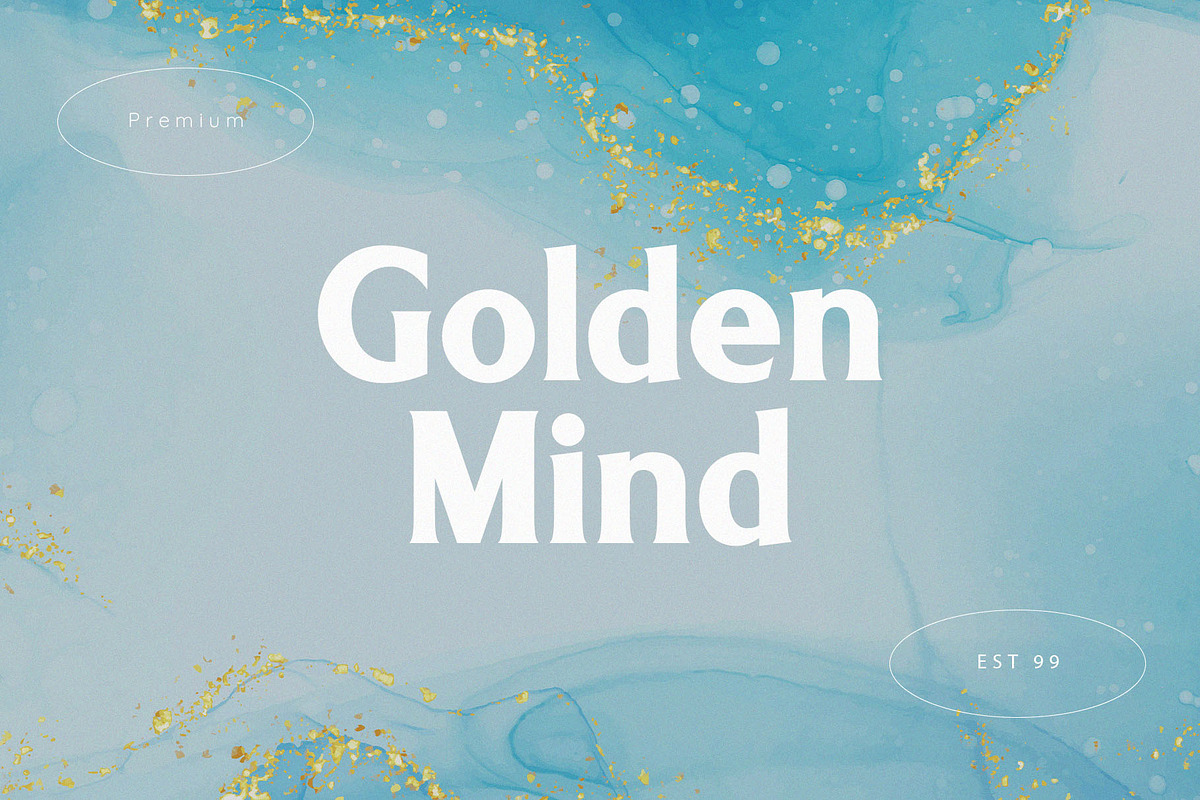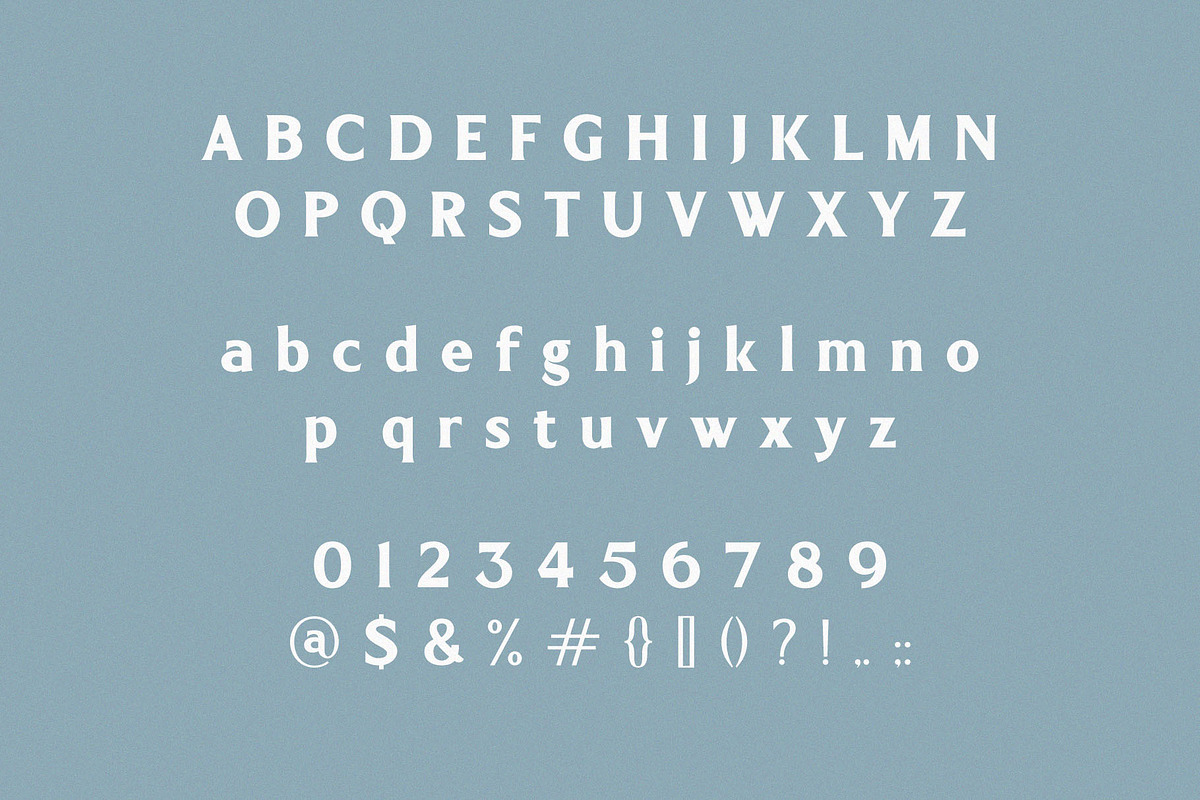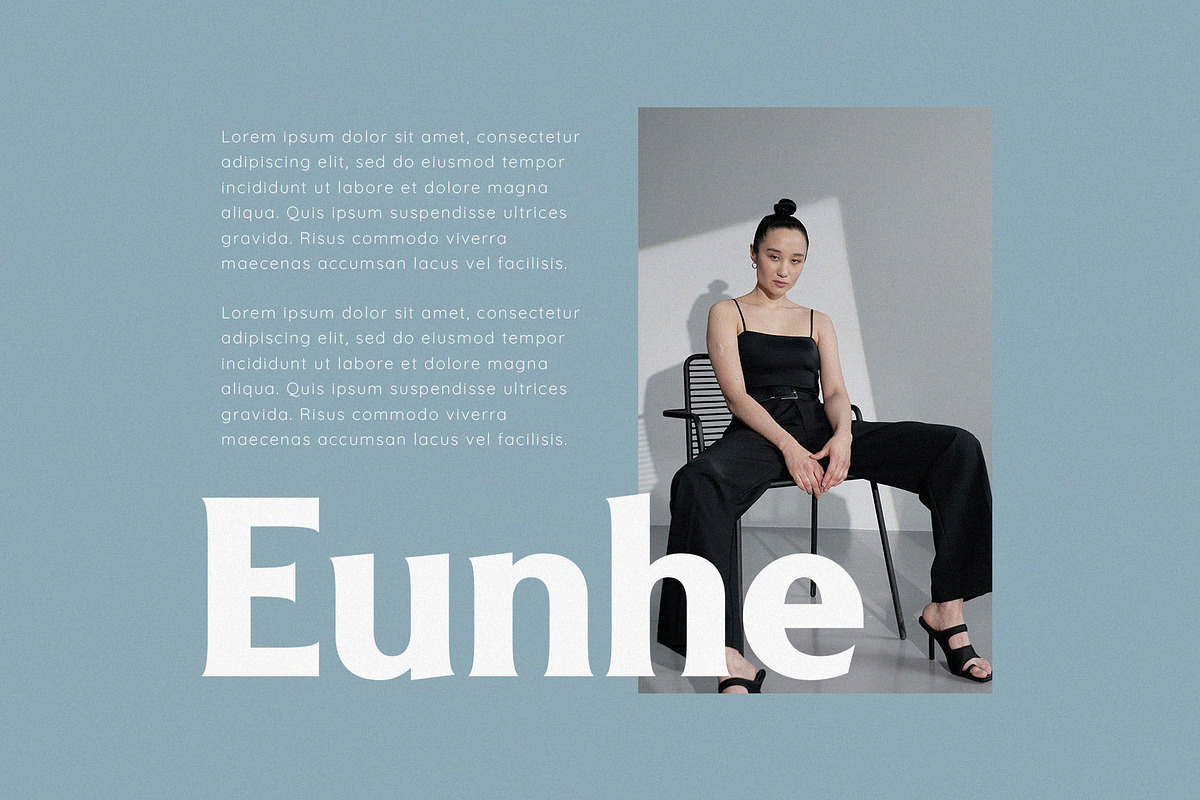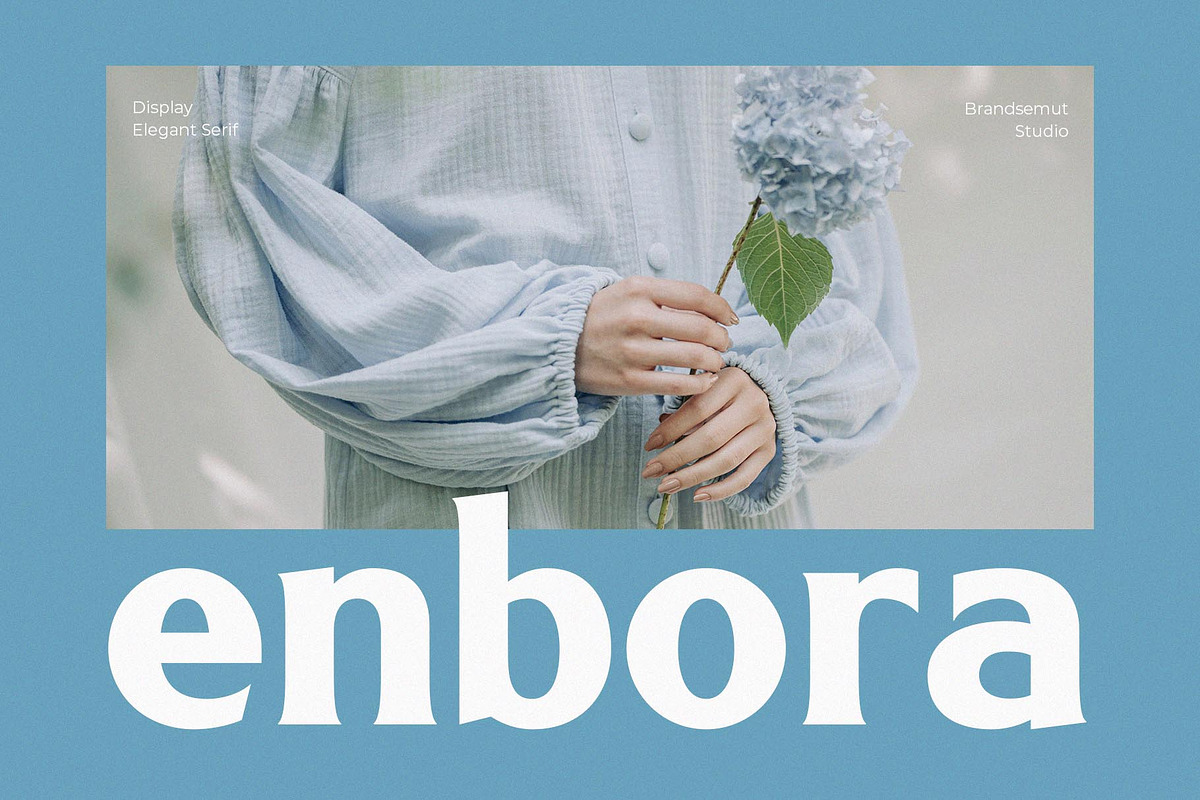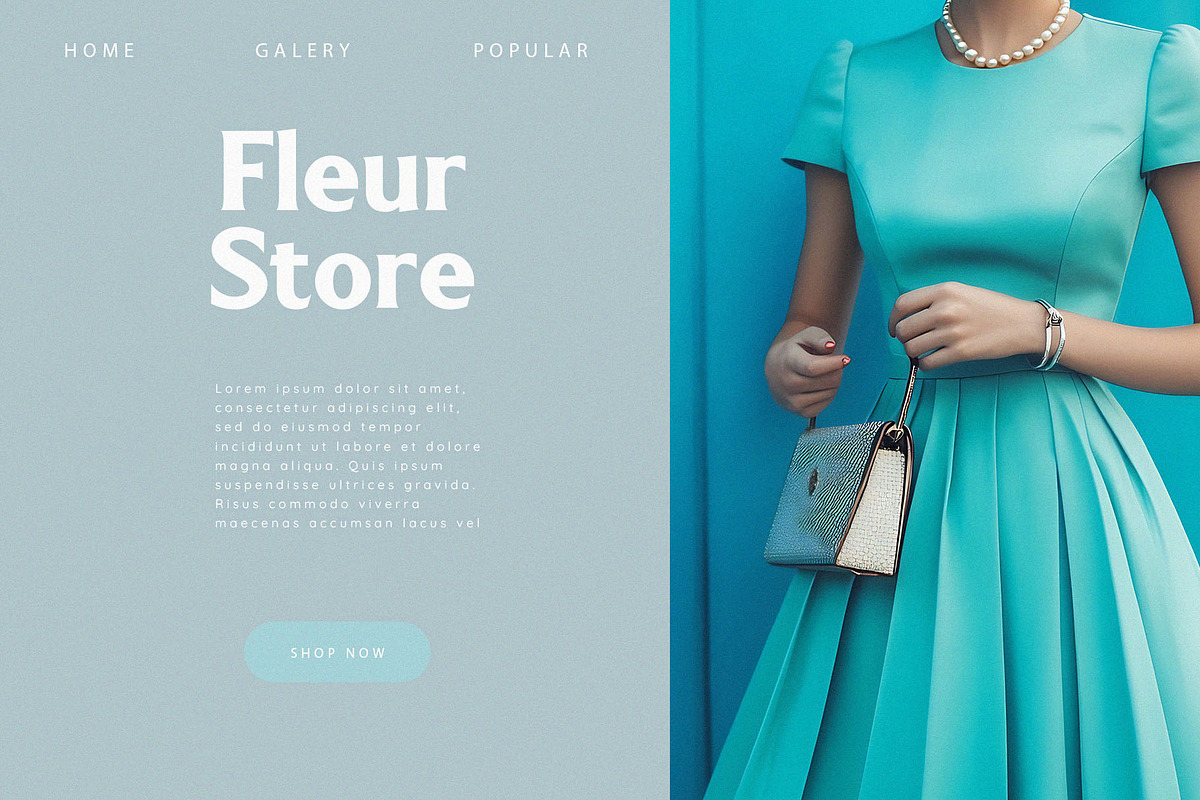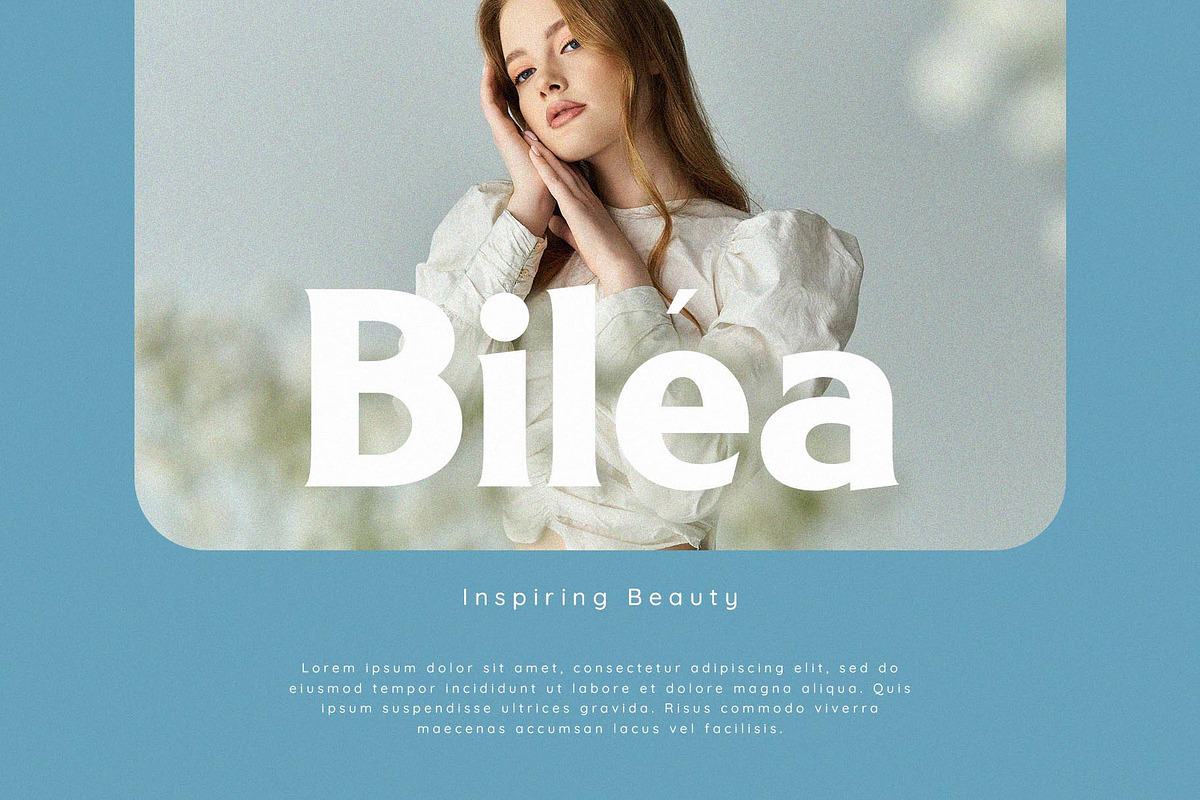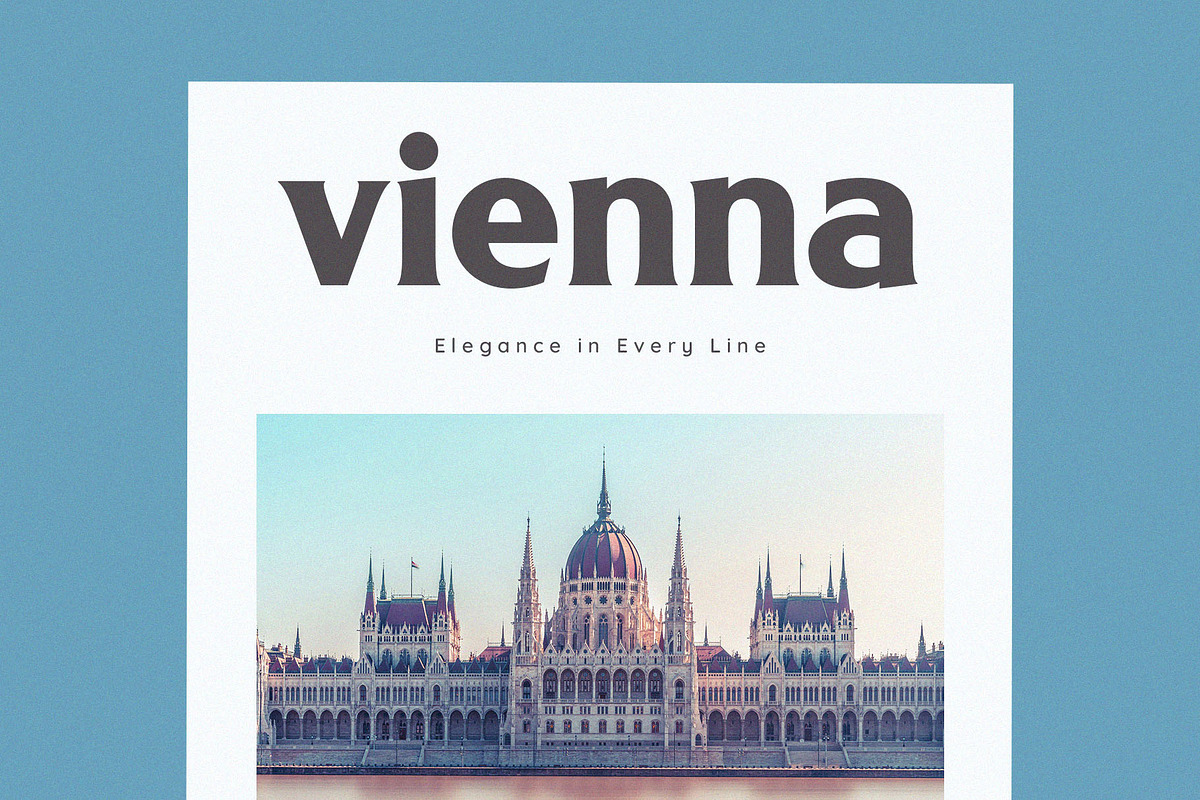
Enbora Stylish & Elegant Bold Serif
Introducing Enbora Elegant Serif Font. Enbora is a modern and classy typeface, best used as a display for headings, logos, branding, magazines, product packaging and invitations. Enbora come with clean lines and smooth curves give any project an extra touch of class.